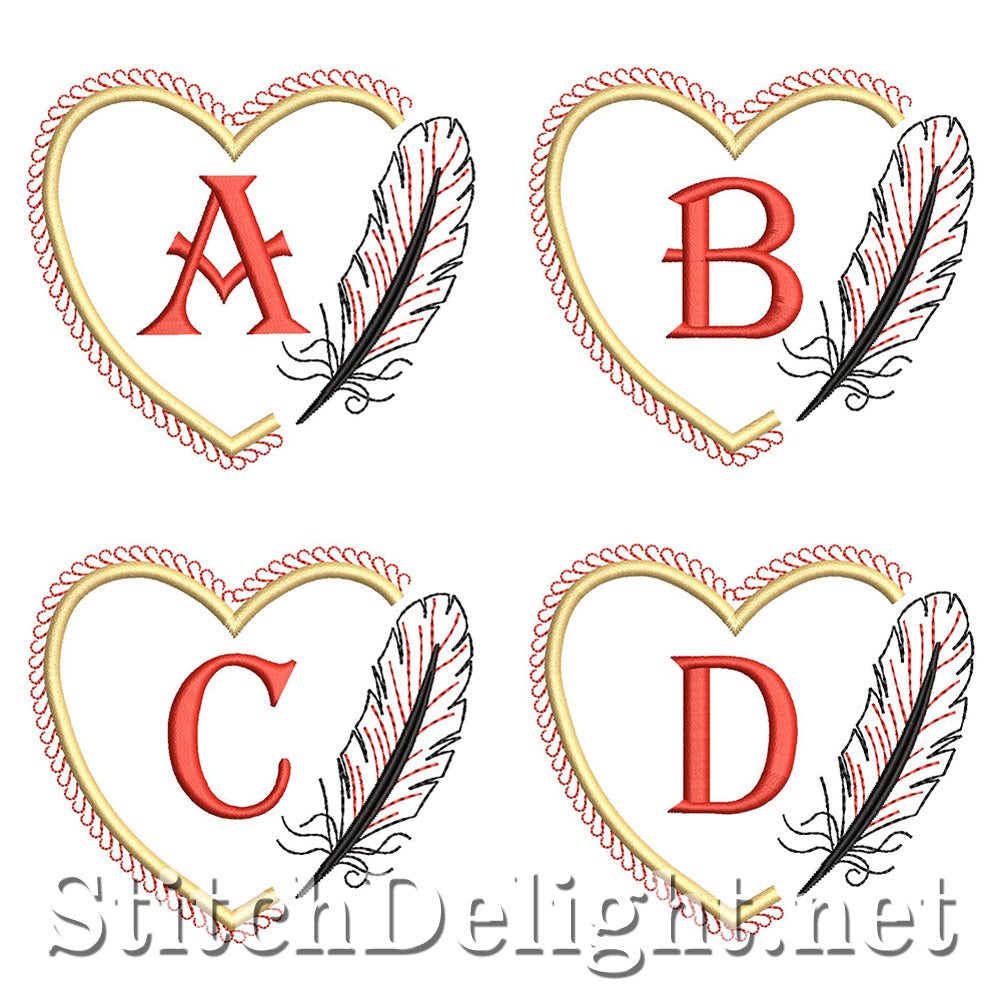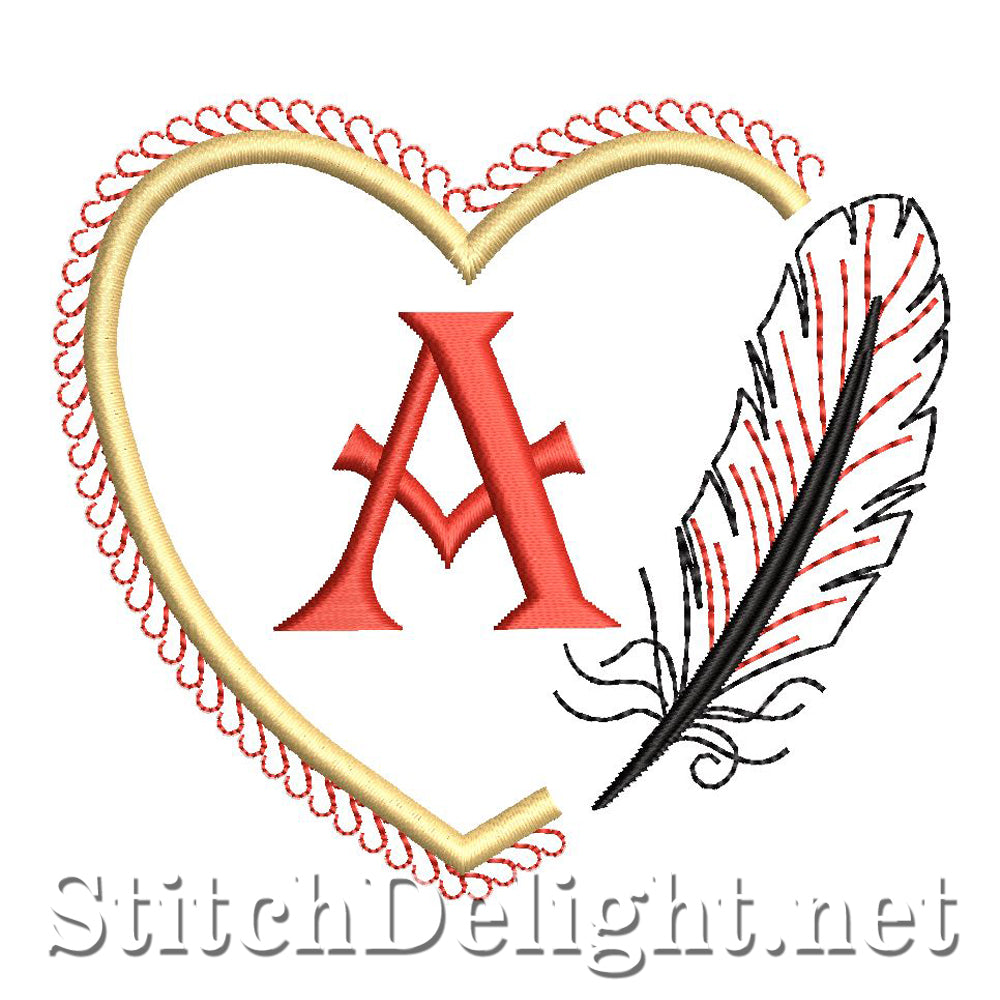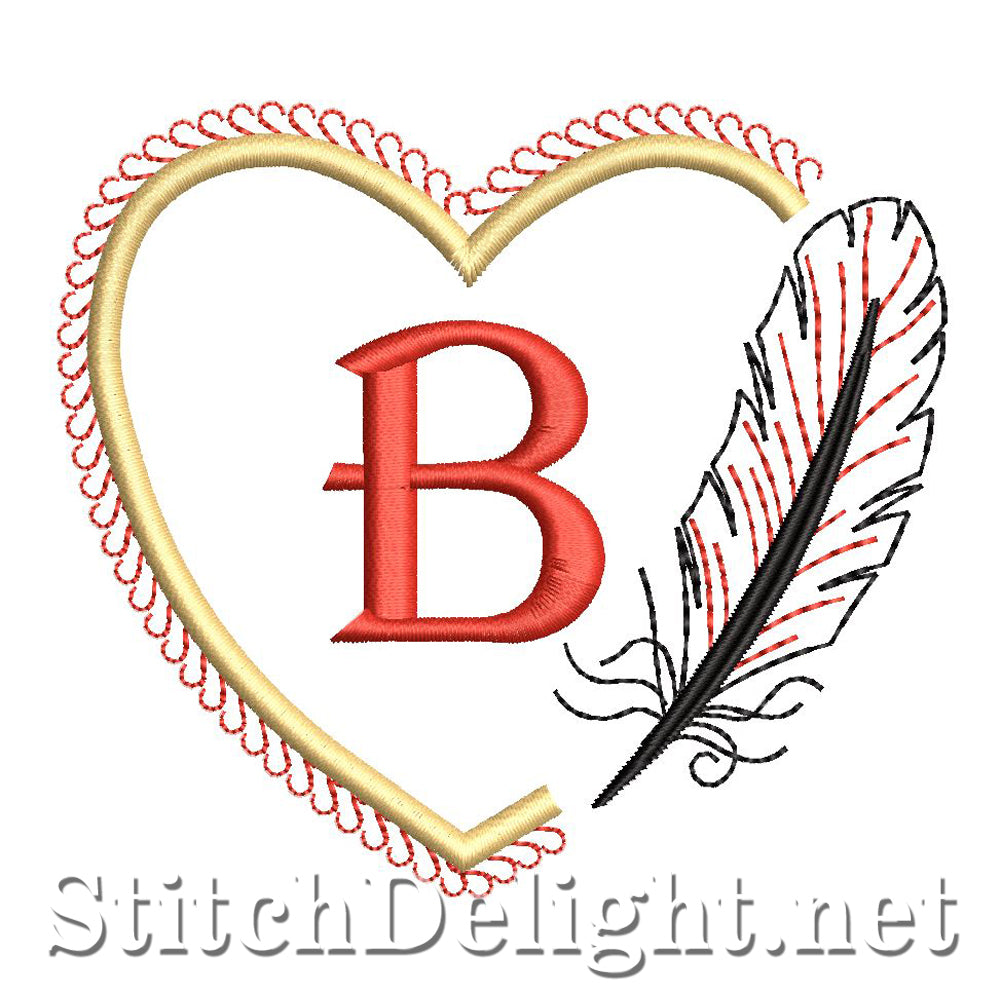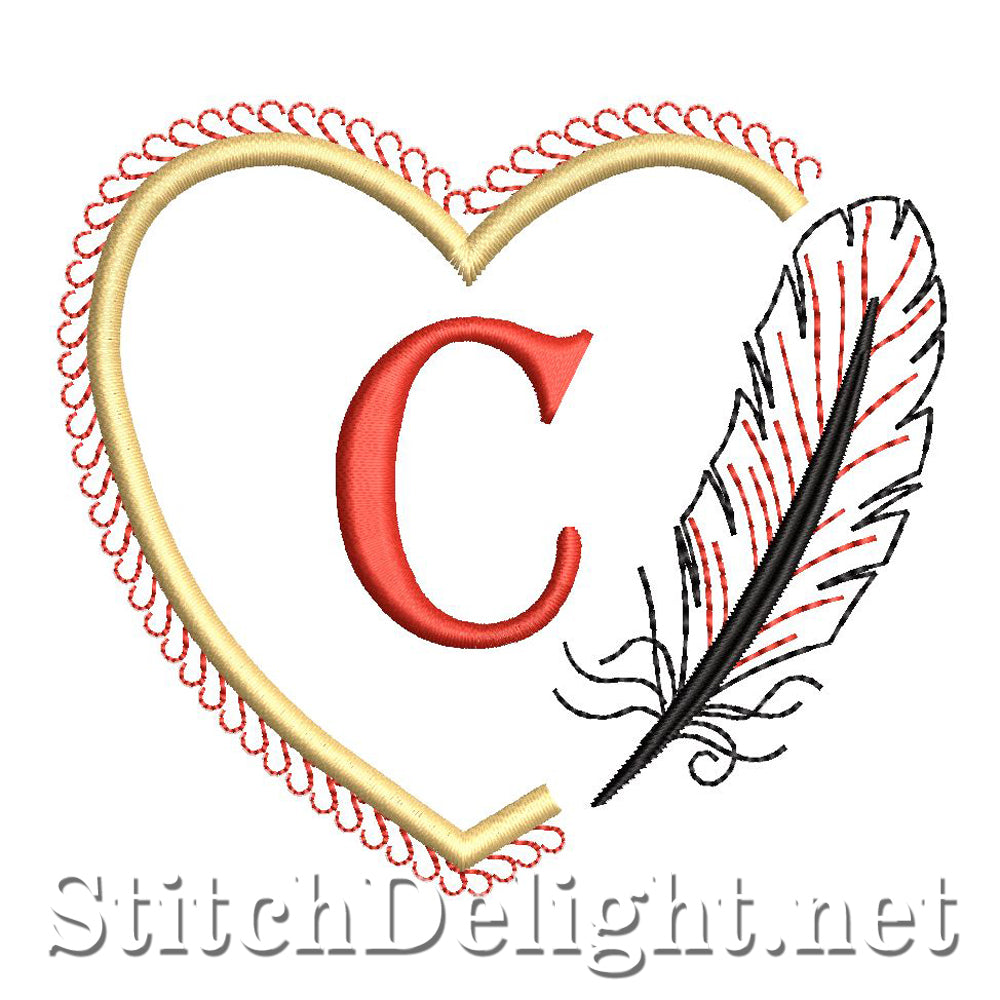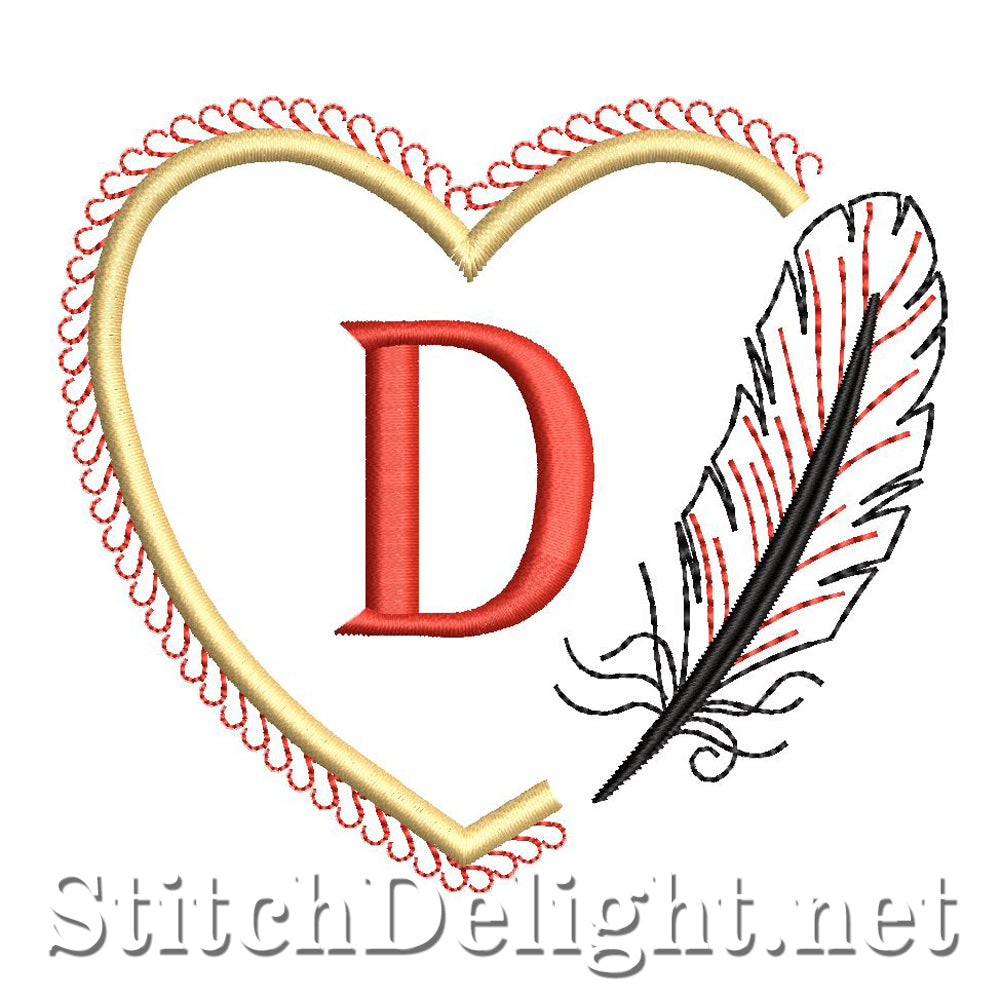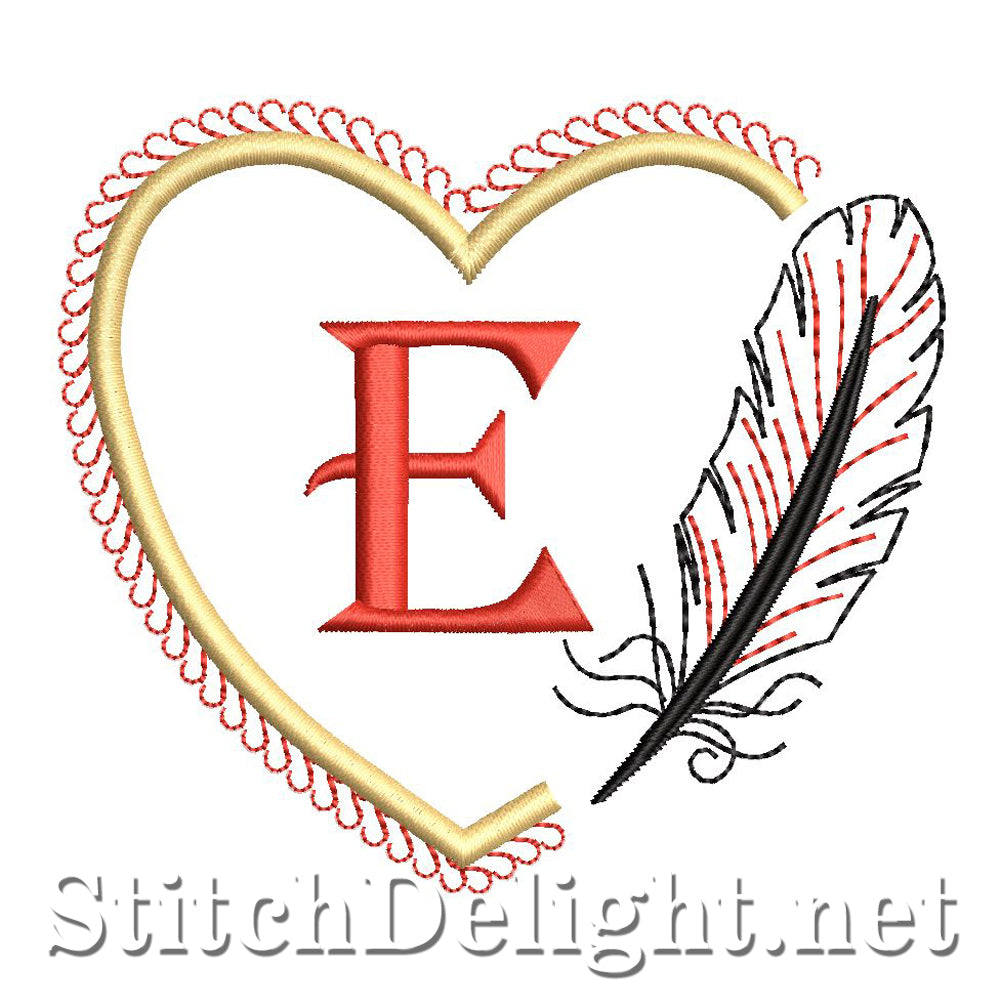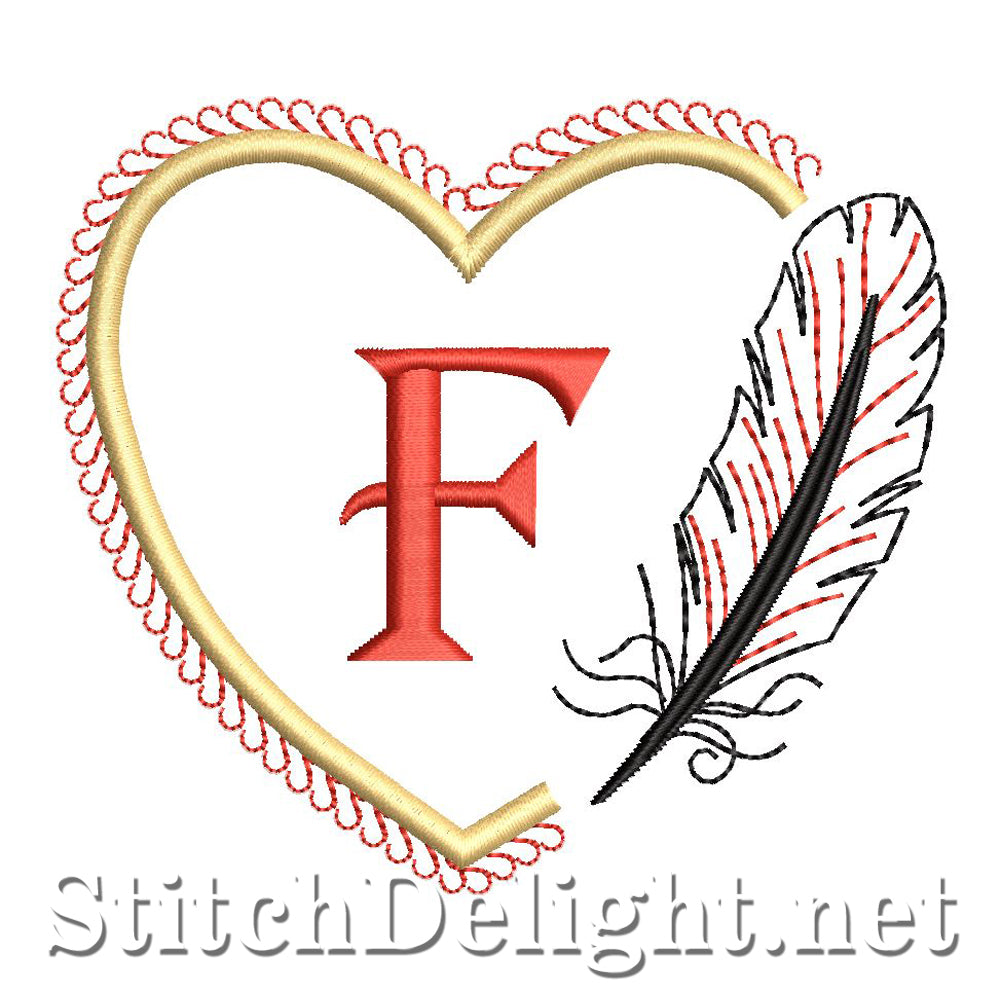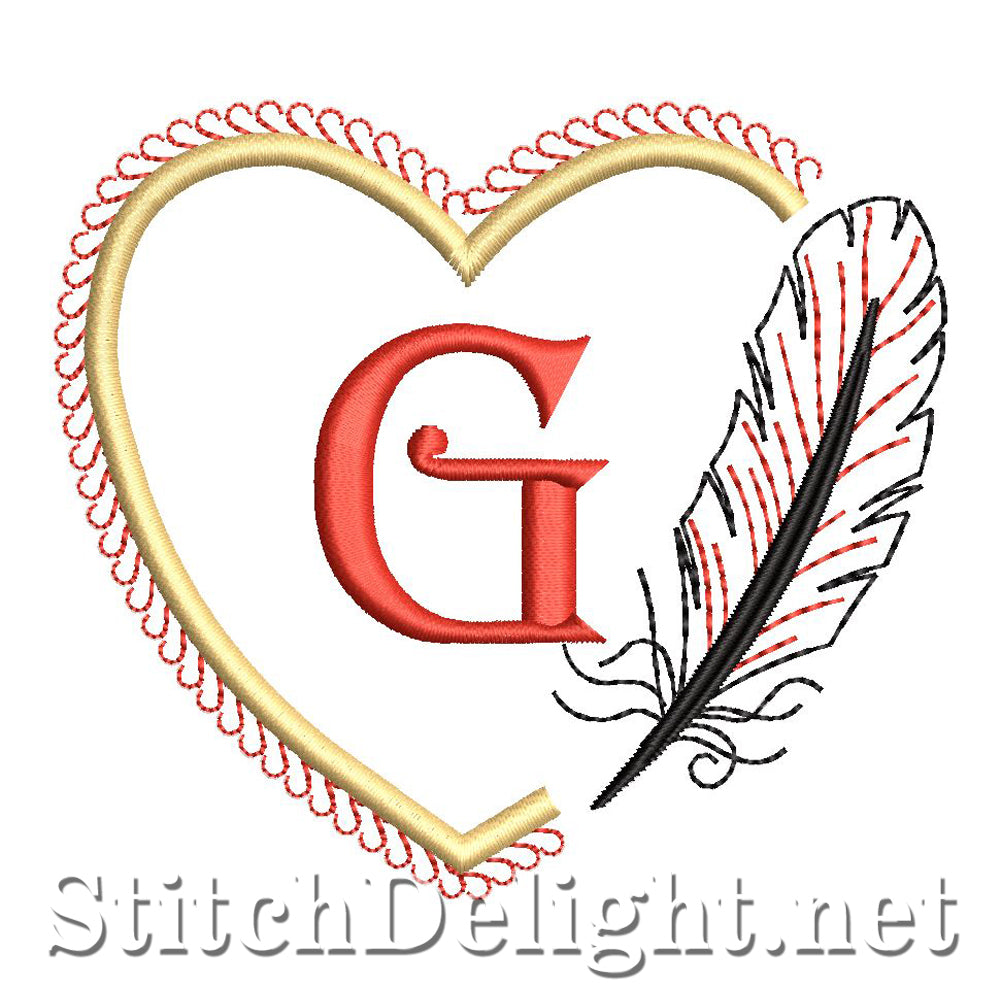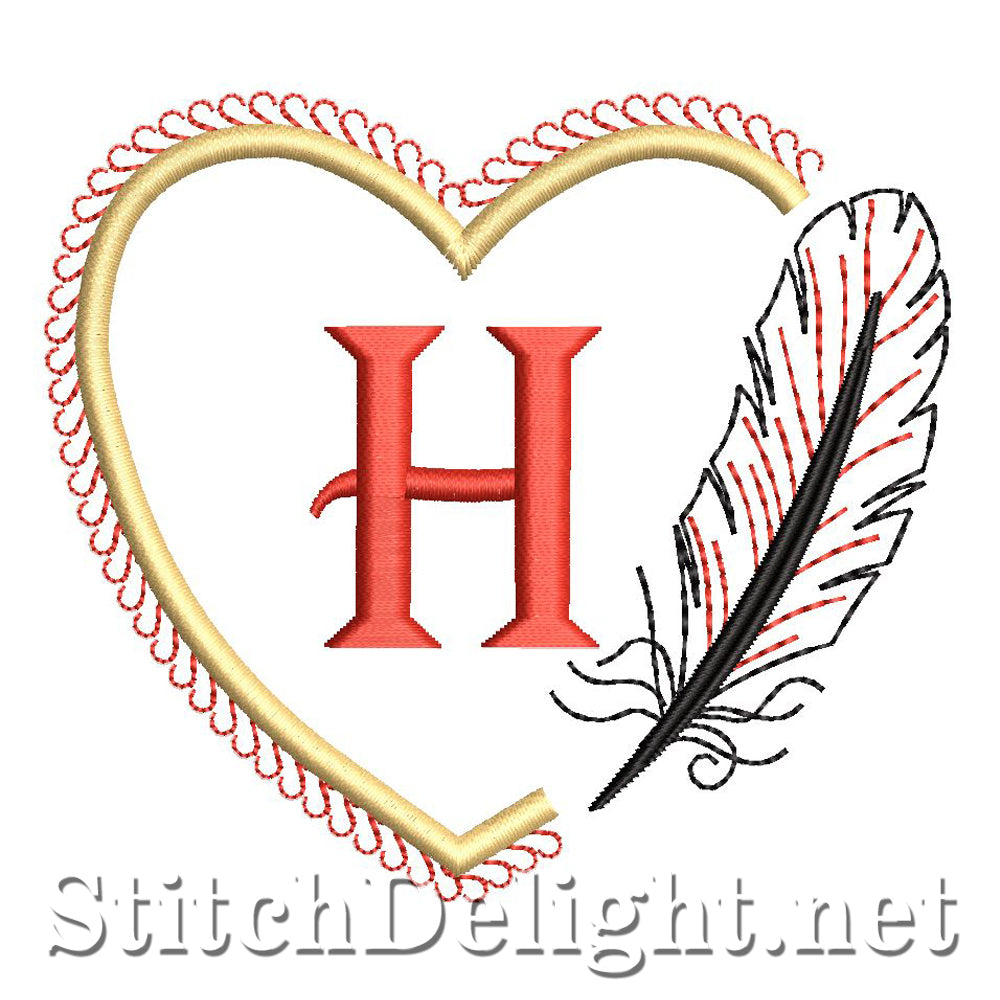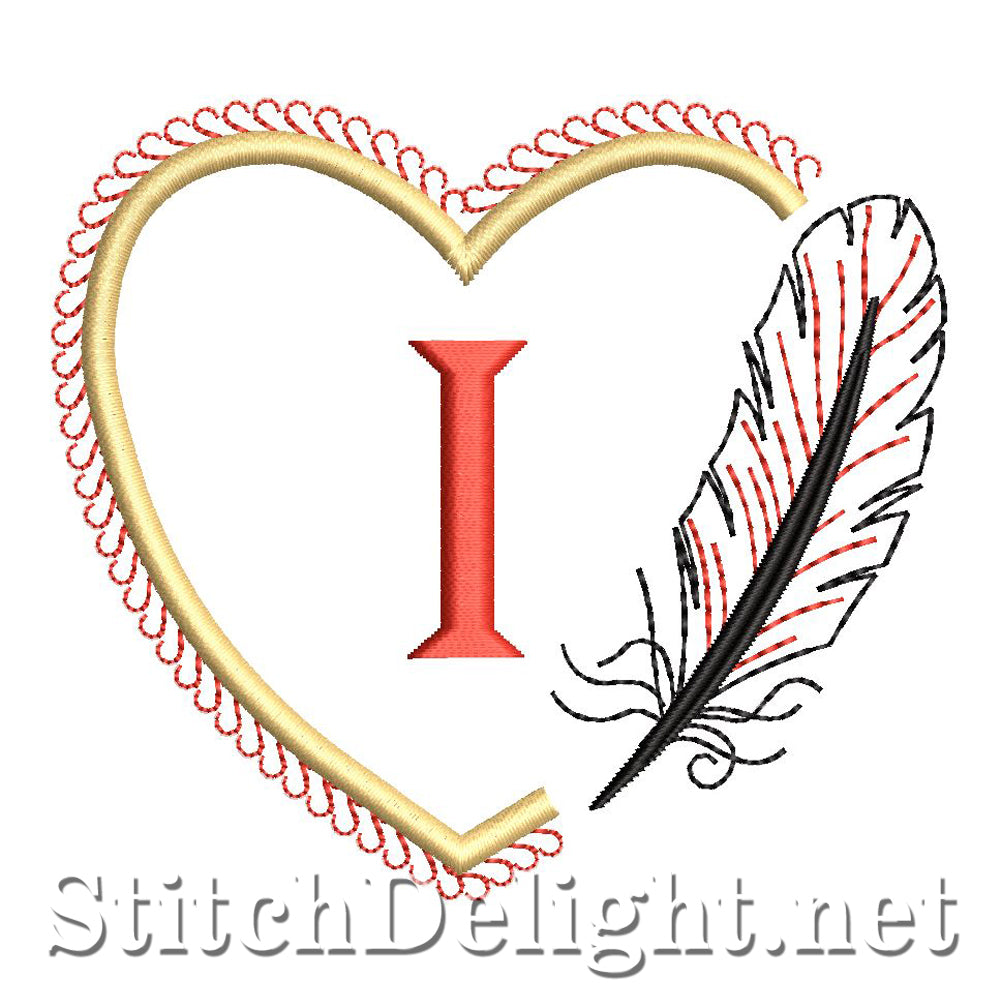
This lovely font comes straight from the heart. Its made for the 4x4 hoop and contains the whole alphabet in this set. Be sure to checkout the tiny pillows set(HOE0002)